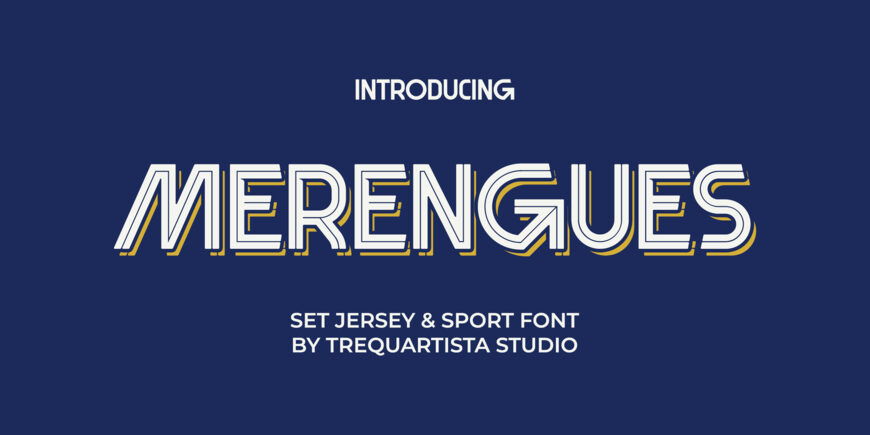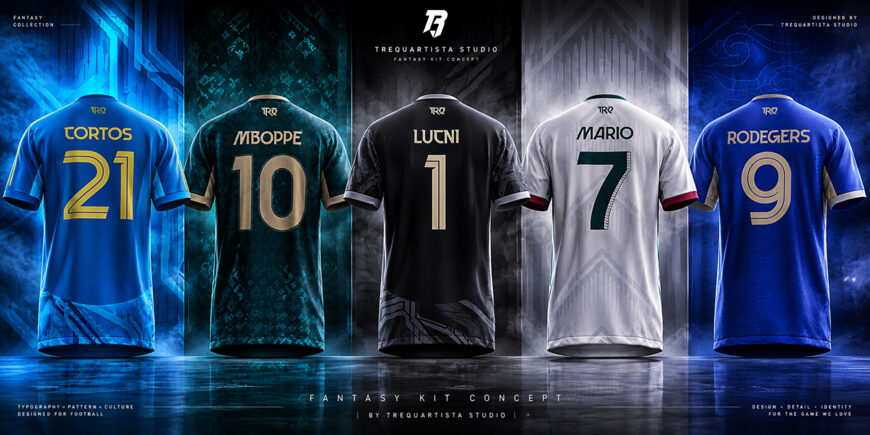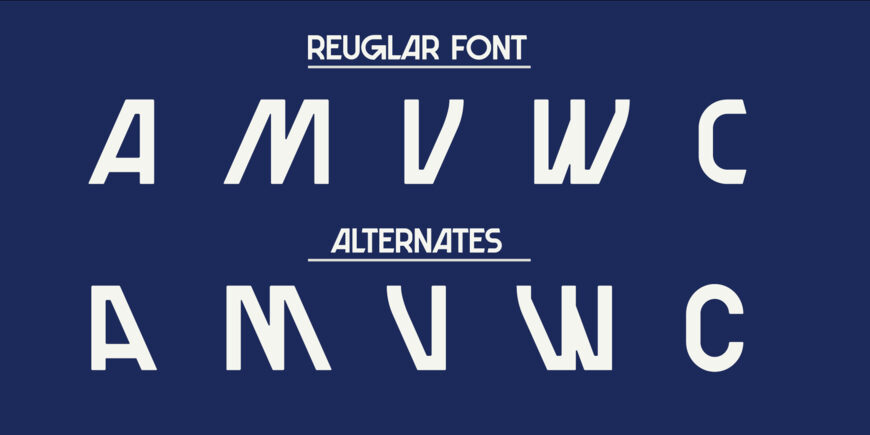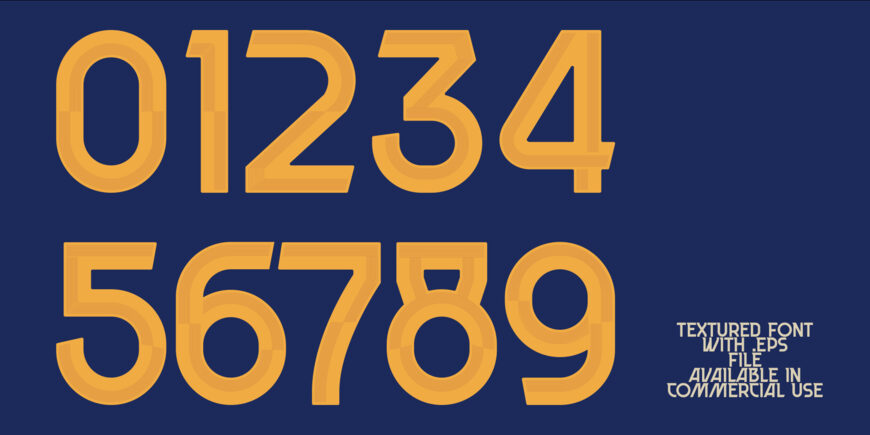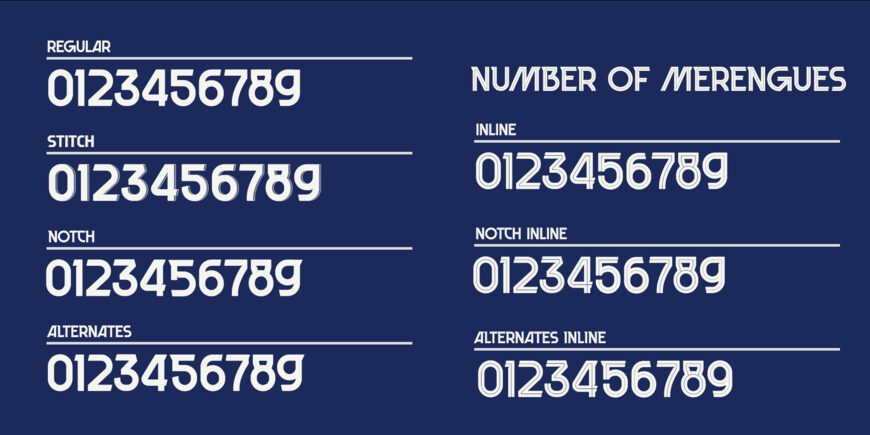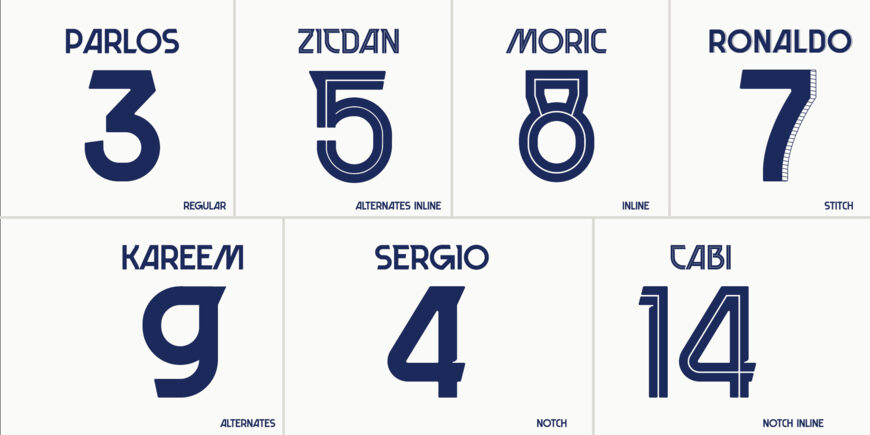
Merengues Font Family
Merengues is a jersey-inspired display typeface designed for sports branding and team identity. Its structured letterforms, sharp diagonal cuts, geometric details, and highly legible numerals give it a powerful modern athletic character.
The family includes seven coordinated styles such as Regular, Notch, Stitch, Alternates, and Inline variations, making it ideal for football jerseys, player names, numbers, logos, esports graphics, posters, merchandise, and striking display designs.